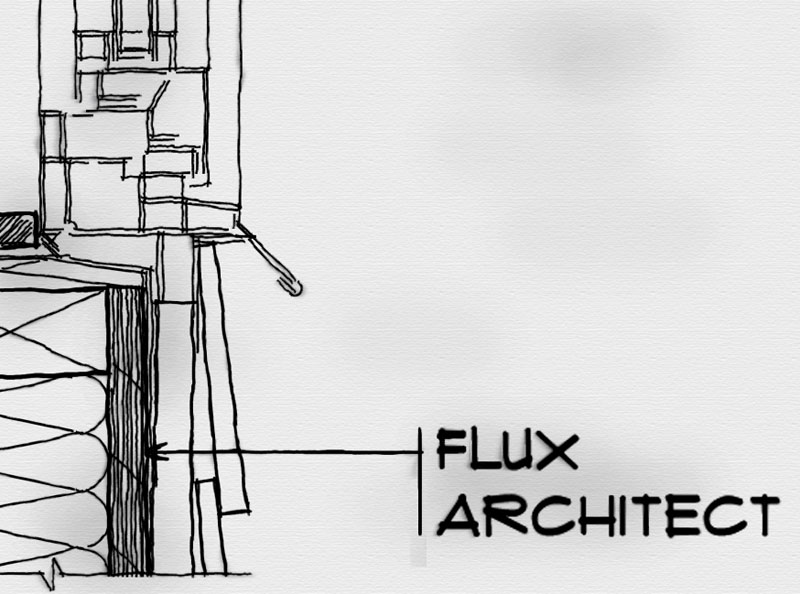
Font name: | Flux Architect |
Author: | orange modern |
Note by orange modern | |
An architectural font intended for use in technical drawings. Enjoy! |